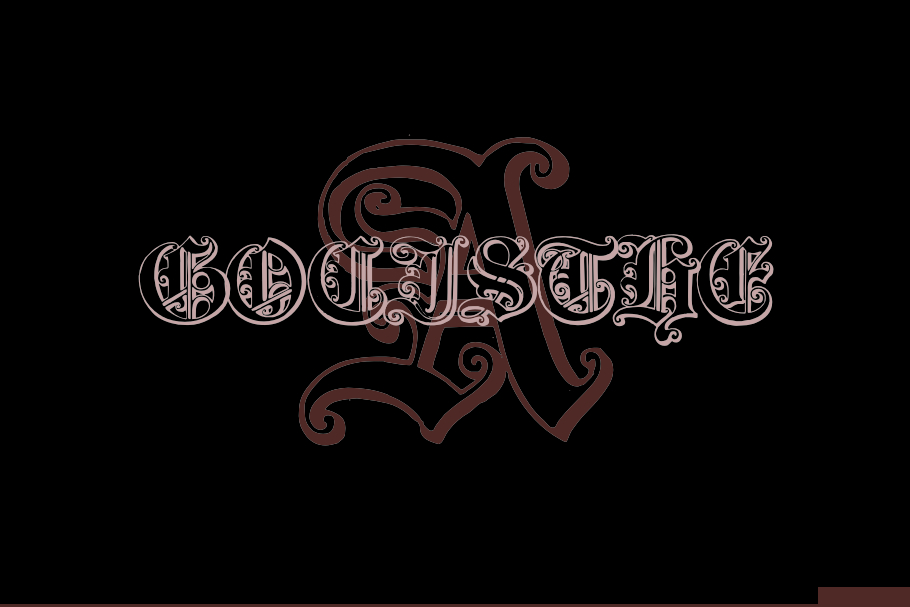
Gotische Font
About Gotische Font
Explore the mystique of “Gotische,” a captivating blackletter family font featuring 10 distinct variations. With its bold, gothic-inspired, all-caps design, Gotische exudes timeless elegance and a touch of medieval charm. Ideal for adding a sophisticated and dramatic flair to your projects, this versatile font family brings a unique and historical aesthetic to any text. Embrace the power of blackletter with Gotische, where each variation tells a story of its own.